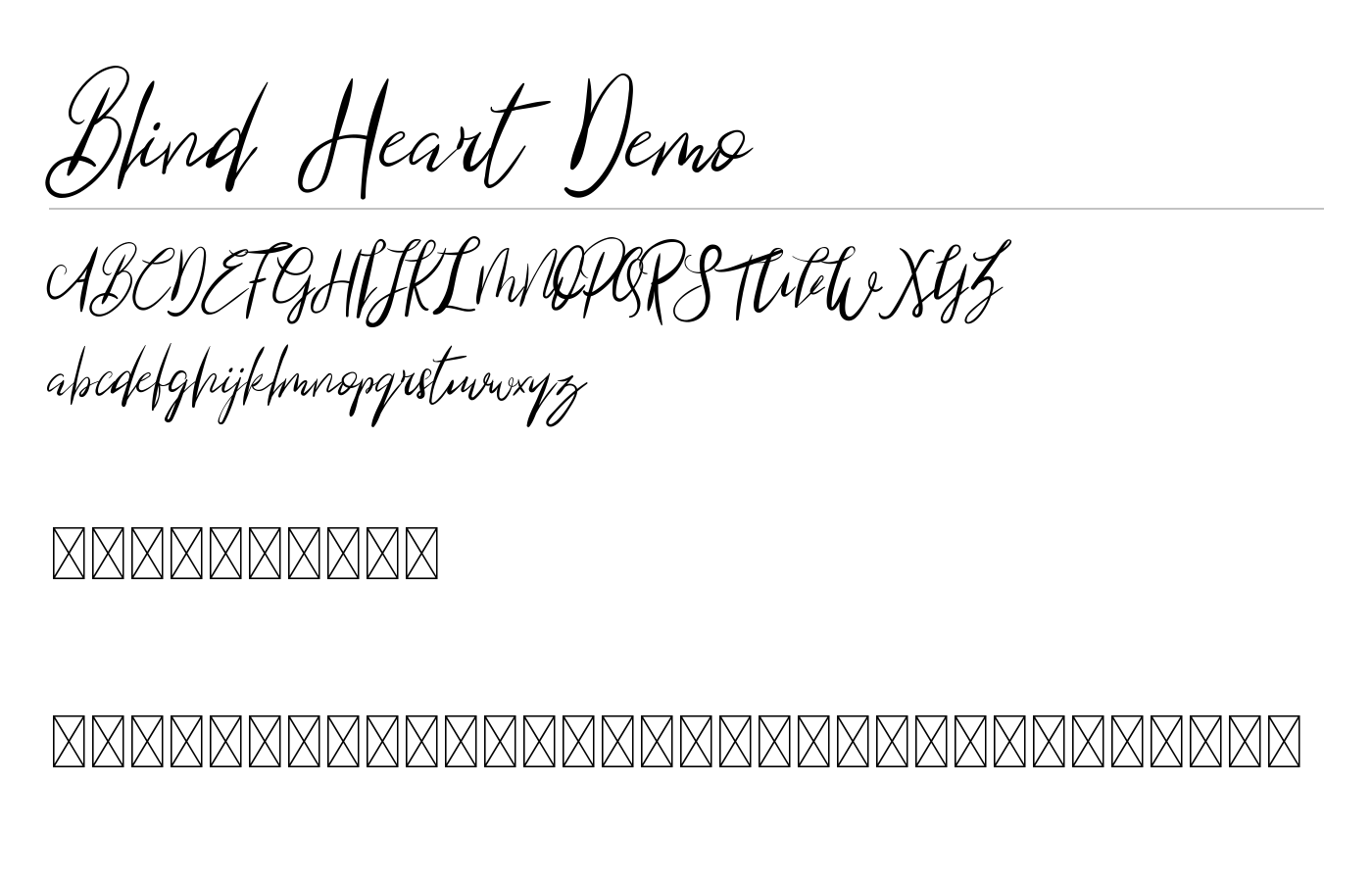
Blind Heart Demo is an elegant handwritten script font with a flowing, delicate style that mimics natural calligraphy. Its thin, varying strokes and graceful, slightly whimsical letterforms make it perfect for romantic, feminine, or artistic design projects like invitations, branding, or editorial headlines. This font adds a personal, sophisticated touch with a modern flair, best suited for decorative use rather than extended body text.
Blind Heart Demo Font
About Blind Heart Demo Font
| Font family | Blind Heart Demo Font |
| Designer | Fajar Saepul Rohman |